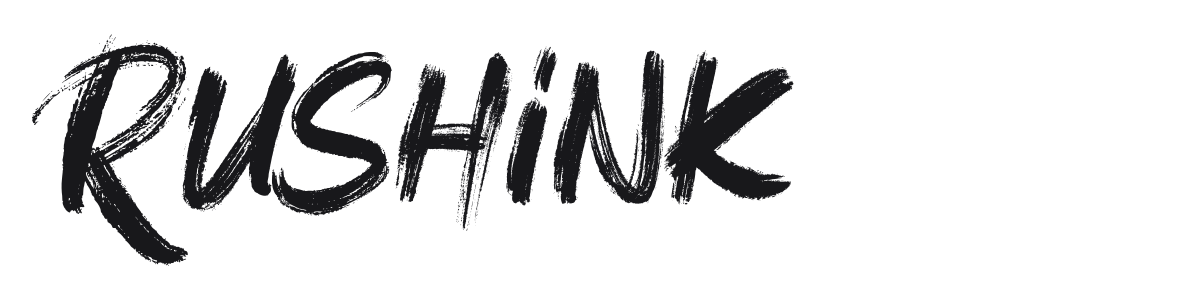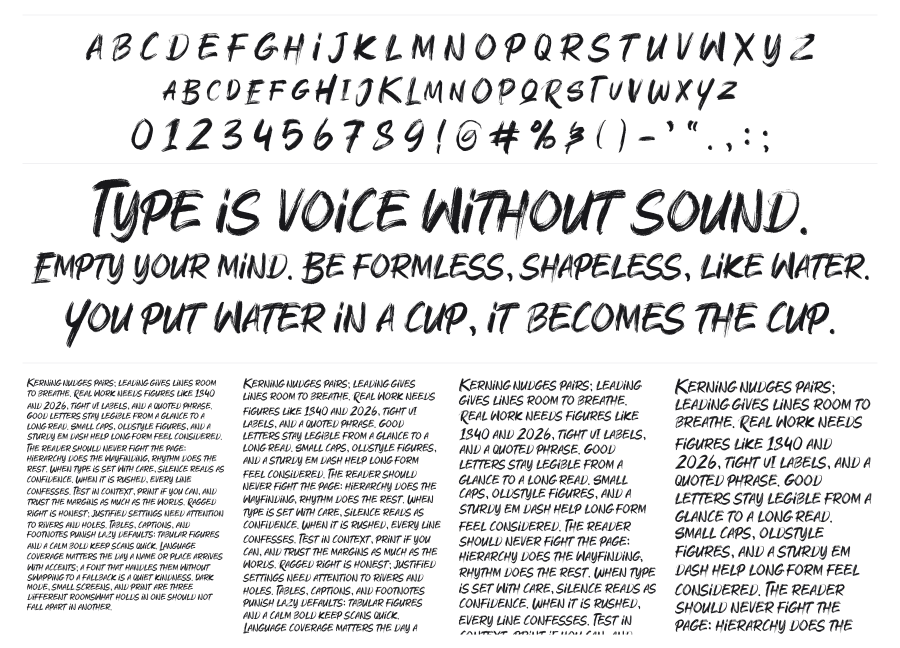
Rushink
Rushink is a bold brush script with rough, ink-spattered strokes and a strong italic slant that feels like it was painted in one aggressive motion. The heavy bristle texture and frayed terminals give each character a raw, high-energy presence that flat or clean scripts simply can't replicate. It works best large, where the texture and spontaneity read at full force.